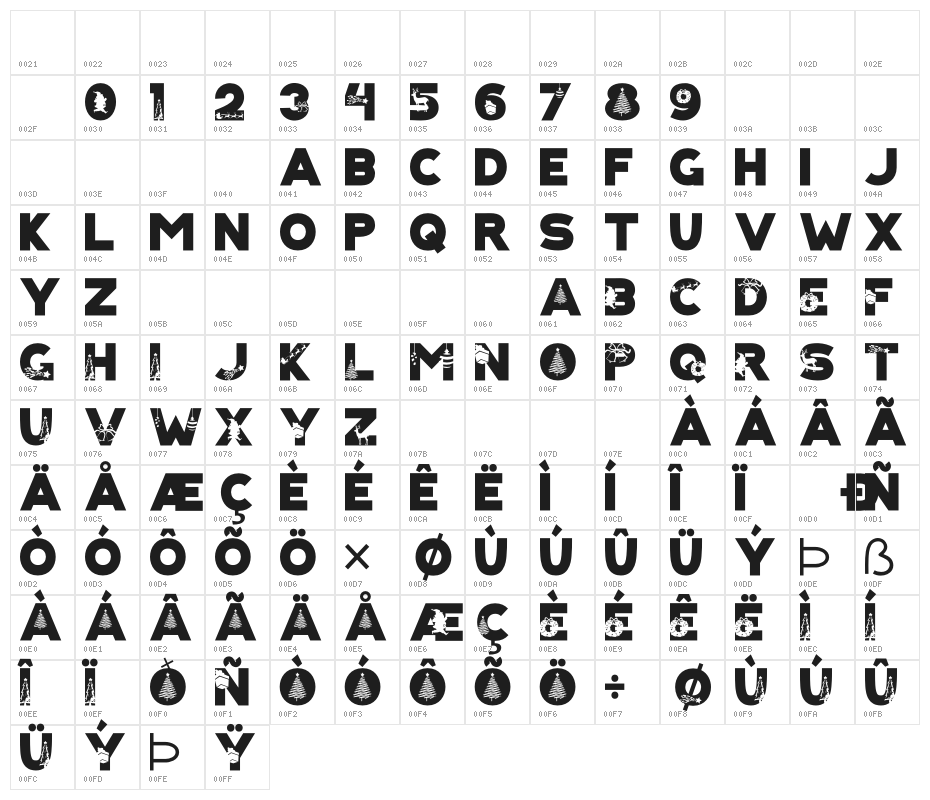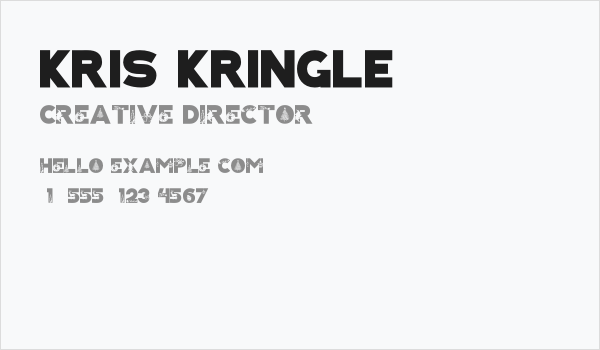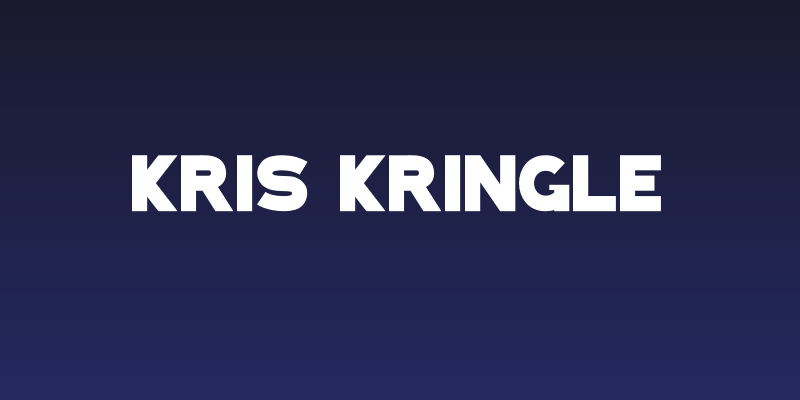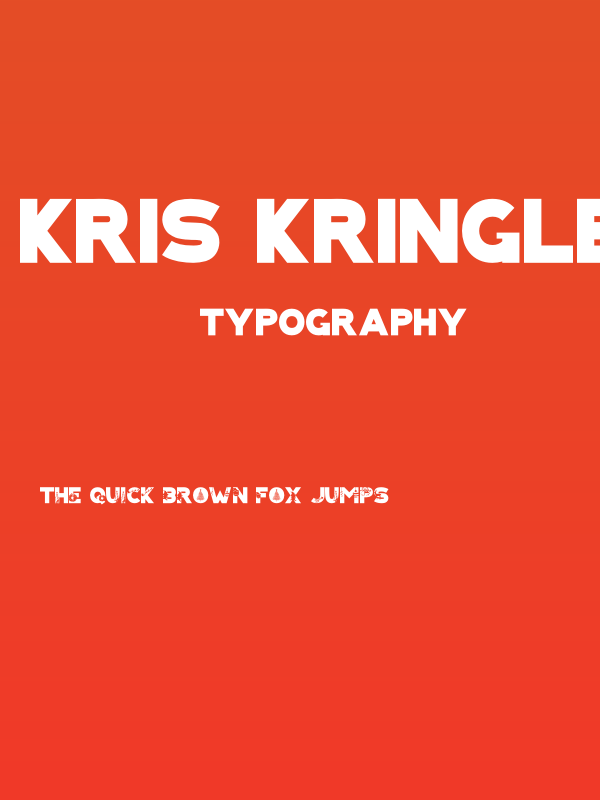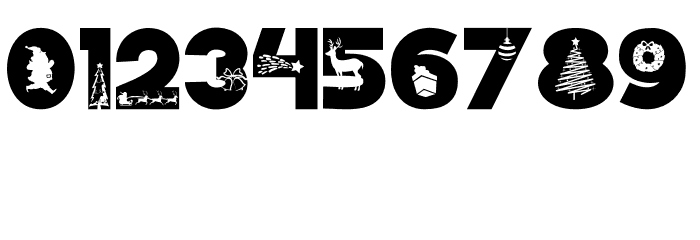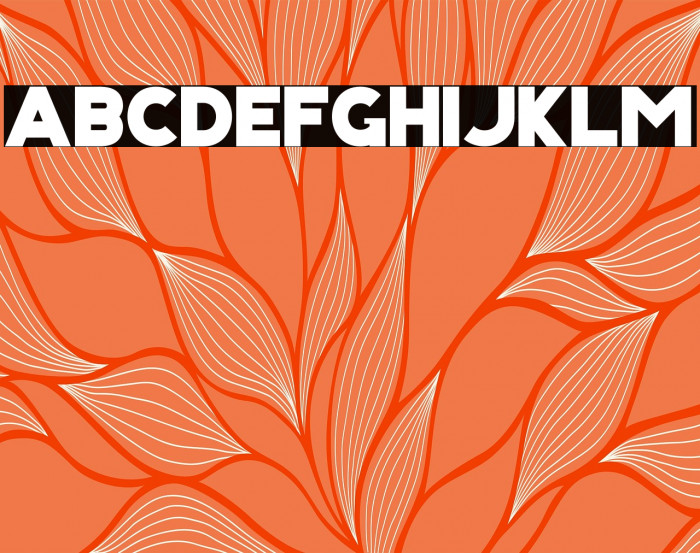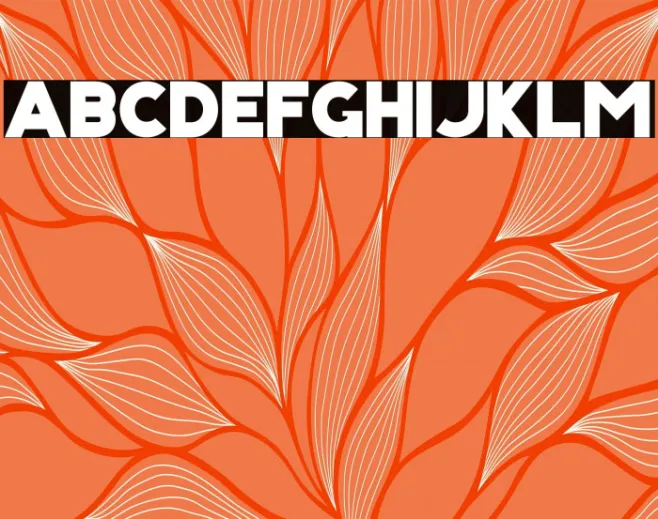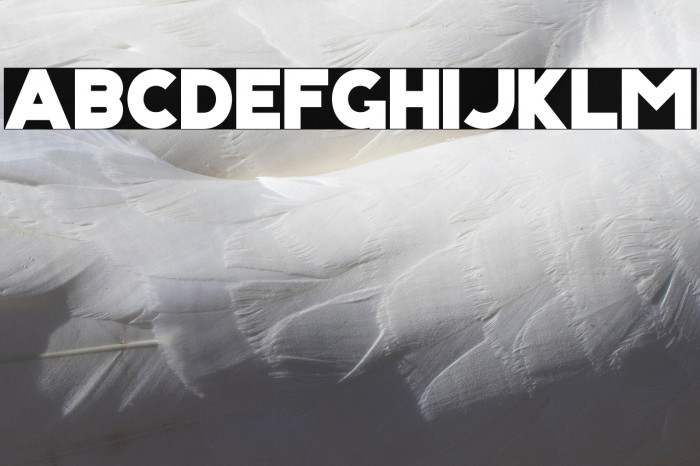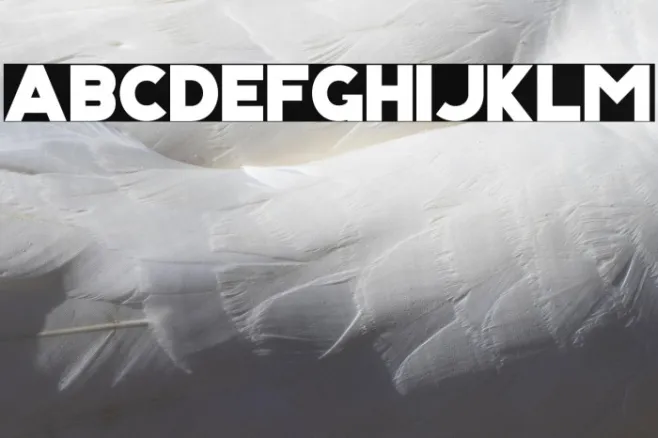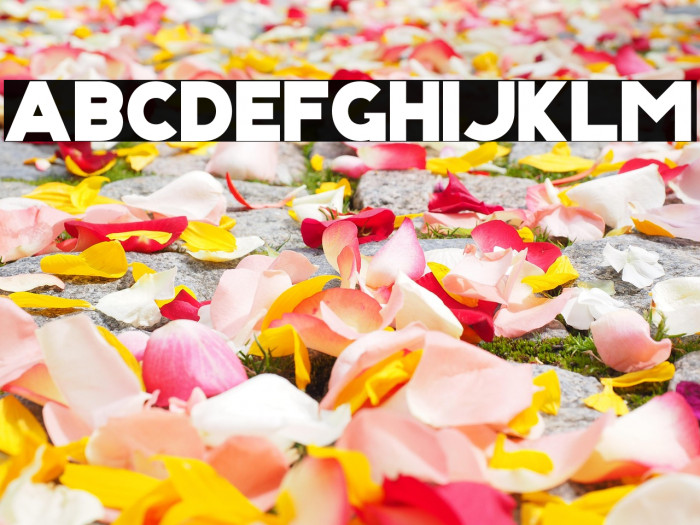
KRIS KRINGLE Font
KRIS KRINGLE Description
This font features a bold, blocky style with a playful twist, incorporating festive elements such as Christmas trees, snowflakes, and reindeer within the letters. The uppercase letters are solid and strong, while the decorative version adds a whimsical holiday touch, making it ideal for seasonal designs. The numbers also follow this festive theme, with each digit containing a unique holiday motif. The overall design is eye-catching and perfect for capturing the spirit of the holiday season.